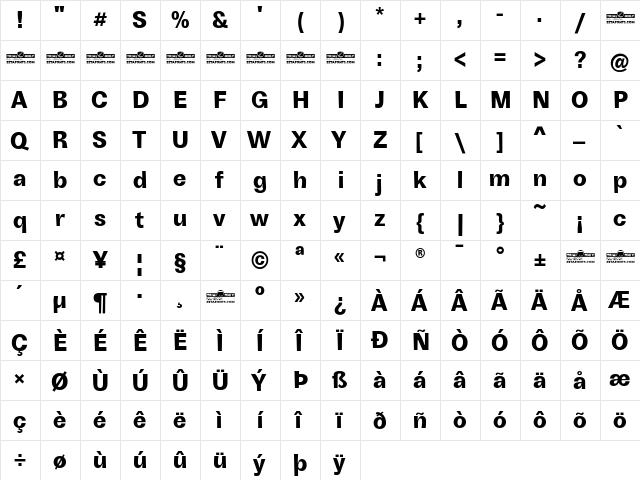
Boring Sans B Trial Bold
| Foundry | Zetafonts |
| Designer | Cosimo Lorenzo Pancini |
Design Context for Boring Sans B Trial Typeface
Boring Sans B Trial takes a measured approach to typography — its balanced proportions and neutral character make it a reliable workhorse for both digital and print work. The heavy weight commands attention and anchors typographic hierarchies.